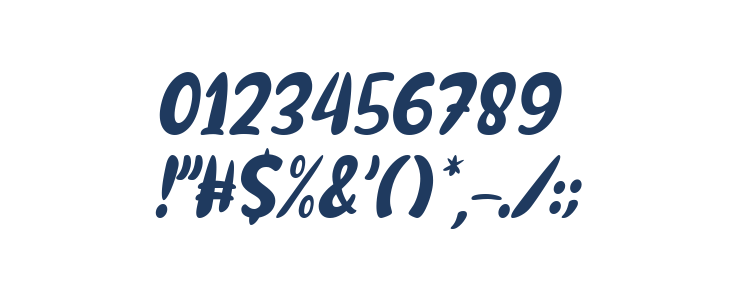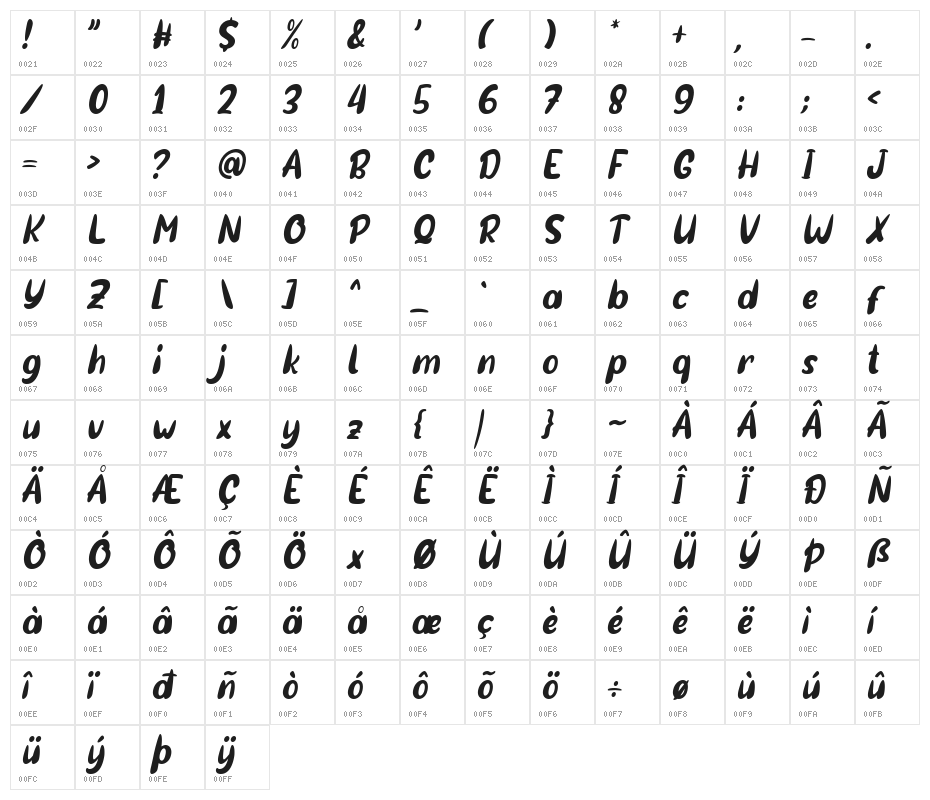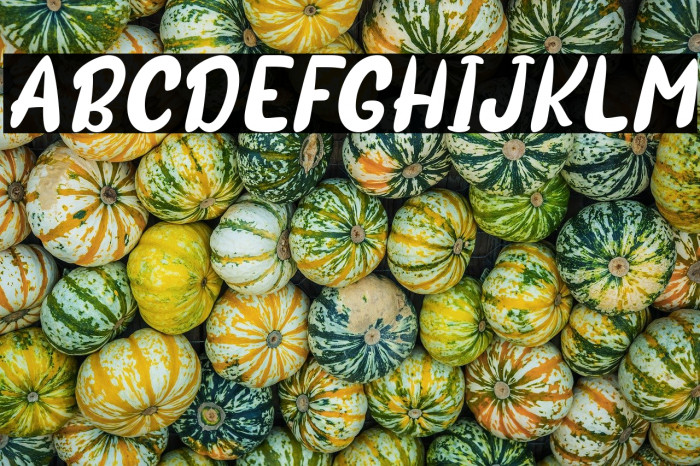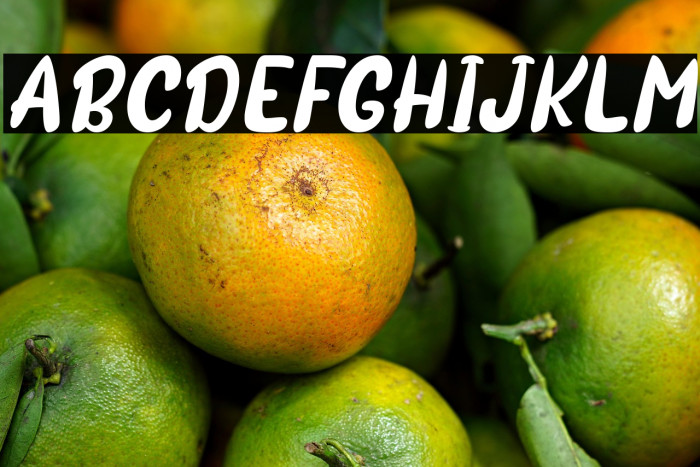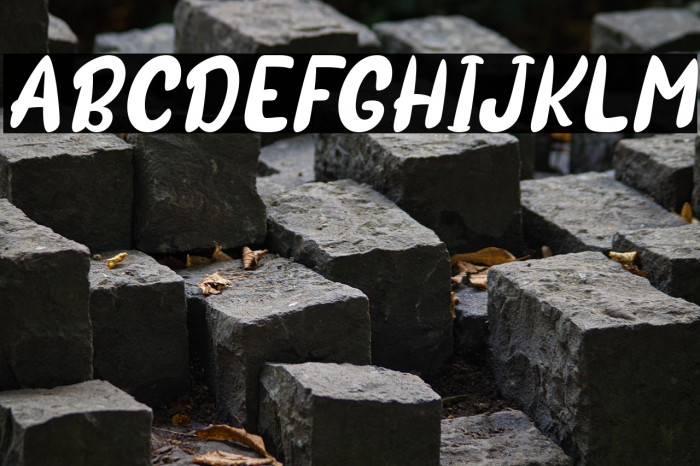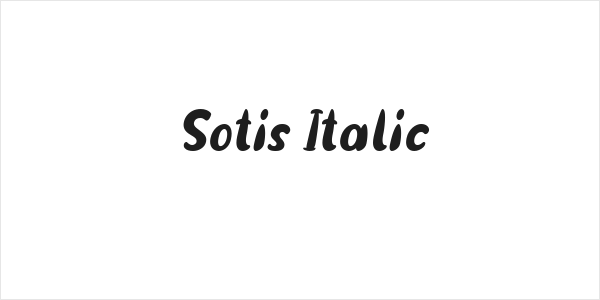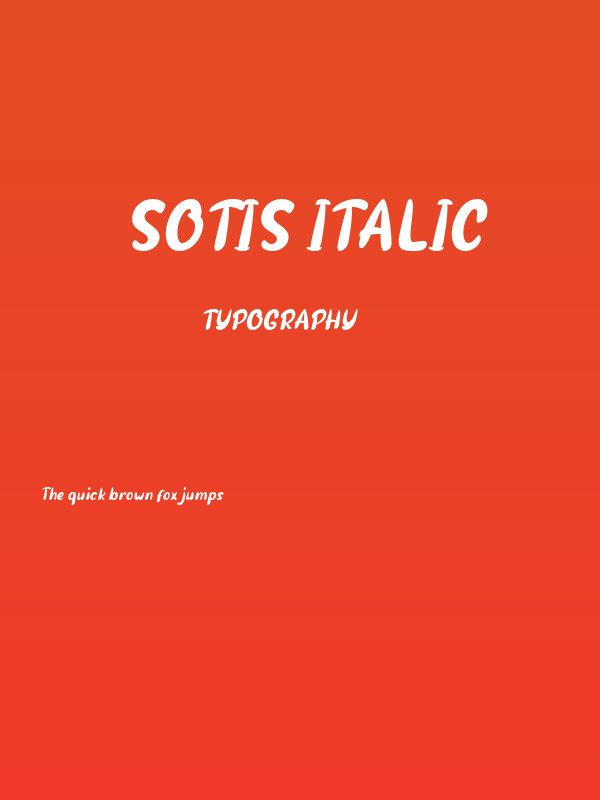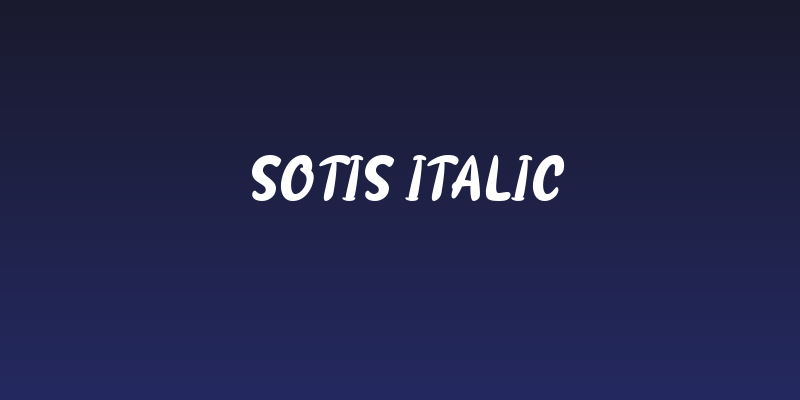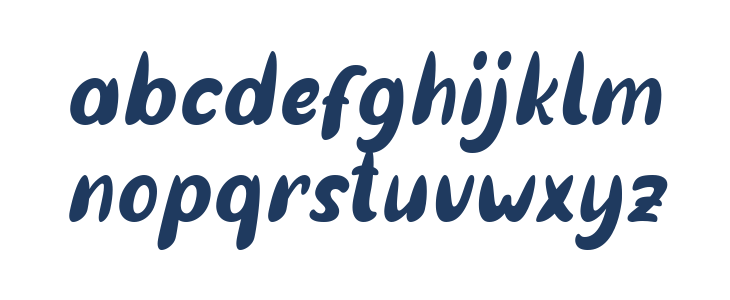
Sotis Italic Font
Sotis Italic Description
This font features a playful and dynamic style, characterized by its bold and rounded letterforms. The letters have a slight slant, giving them an italicized appearance that adds a sense of movement and energy. The strokes are thick and consistent, providing a strong visual impact. The overall design is informal and friendly, making it suitable for projects that require a casual and approachable look. The numerals and special characters maintain the same lively style, ensuring consistency across all elements.
| Proposed Projects | Ideal for children's books, playful branding, casual invitations, and creative posters. |